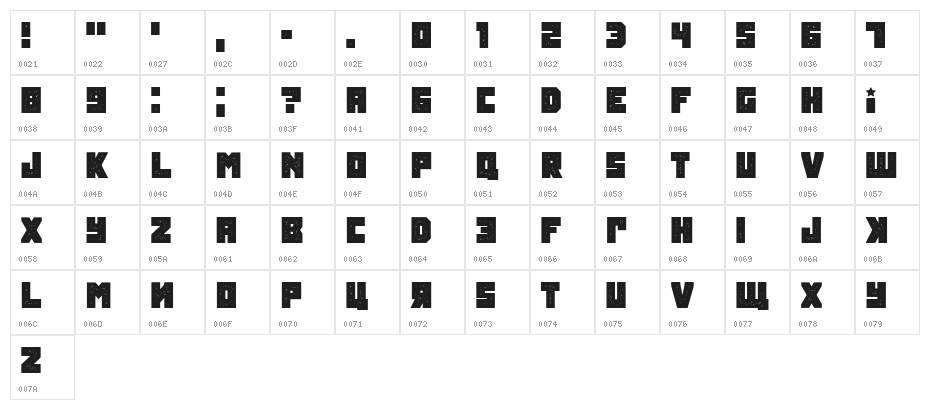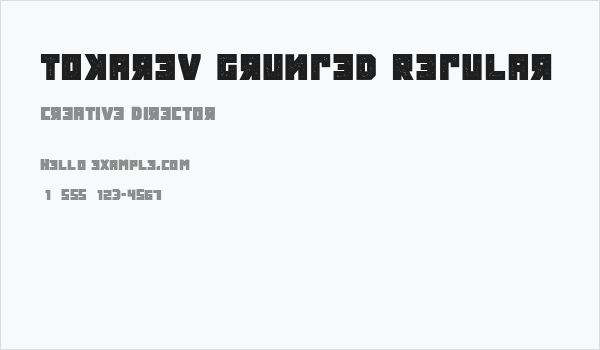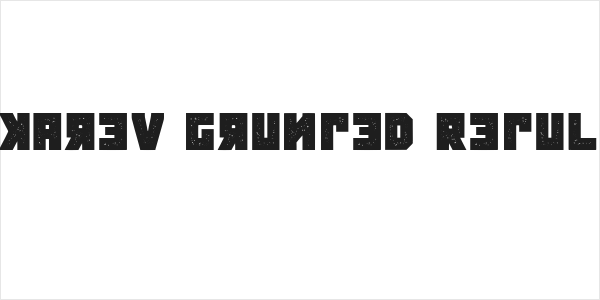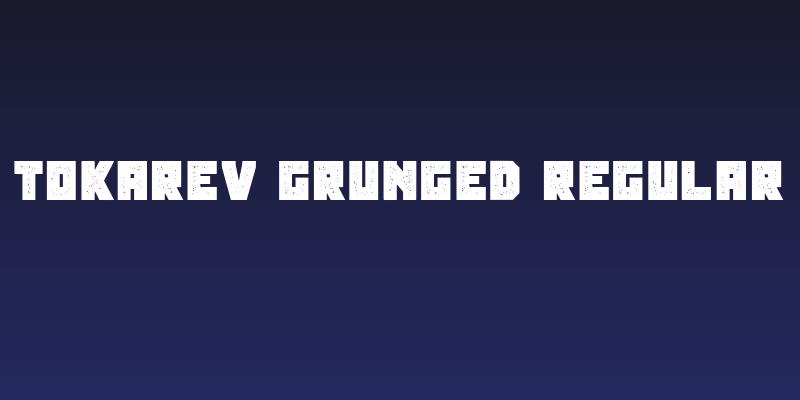
Tokarev Grunged Regular Font
Tokarev Grunged Regular Description
This font features a bold, distressed style with a grungy texture that gives it a rugged, worn appearance. The characters are blocky and geometric, with a consistent weight throughout. The uppercase and lowercase letters maintain a uniform height, creating a cohesive look. The numbers and special characters follow the same design principles, ensuring a harmonious overall aesthetic. The texture adds a vintage, industrial feel, making it ideal for projects that require a strong, impactful visual presence.
| Overall Style | Vintage, Industrial |
| Proposed Projects | Ideal for posters, album covers, branding for edgy or industrial-themed products, and any design needing a bold, gritty look. |